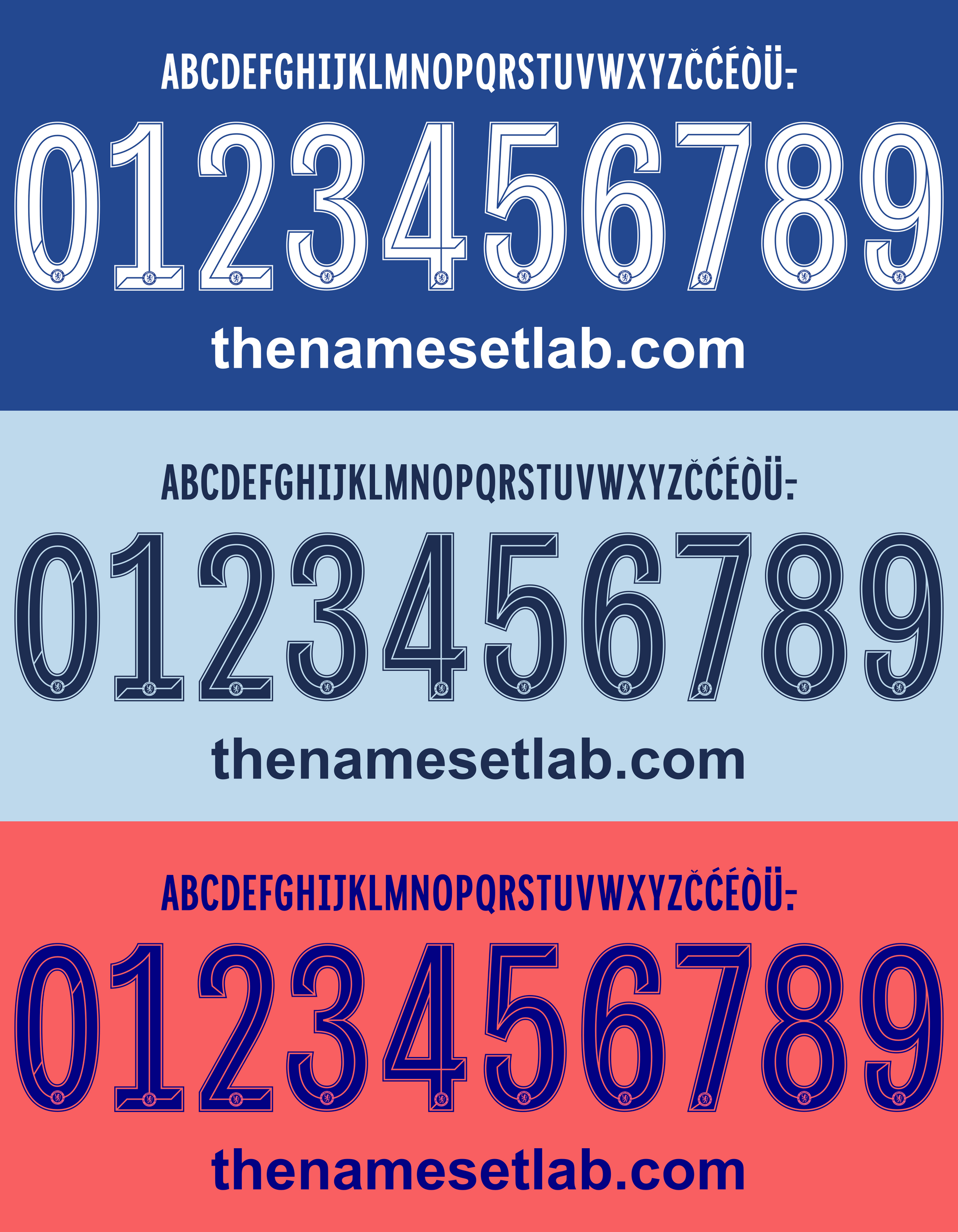
Chelsea 2020-2021 UCL / Cup Font Nameset AI Vector File
Download this Chelsea 2020-2021 UCL / Cup nameset as an editable .ai vector file. Created with the 20/21 font style, it's perfect for printing Champions League or cup shirts, personal projects, or digital kit mockups. A must-have for collectors and Chelsea supporters.